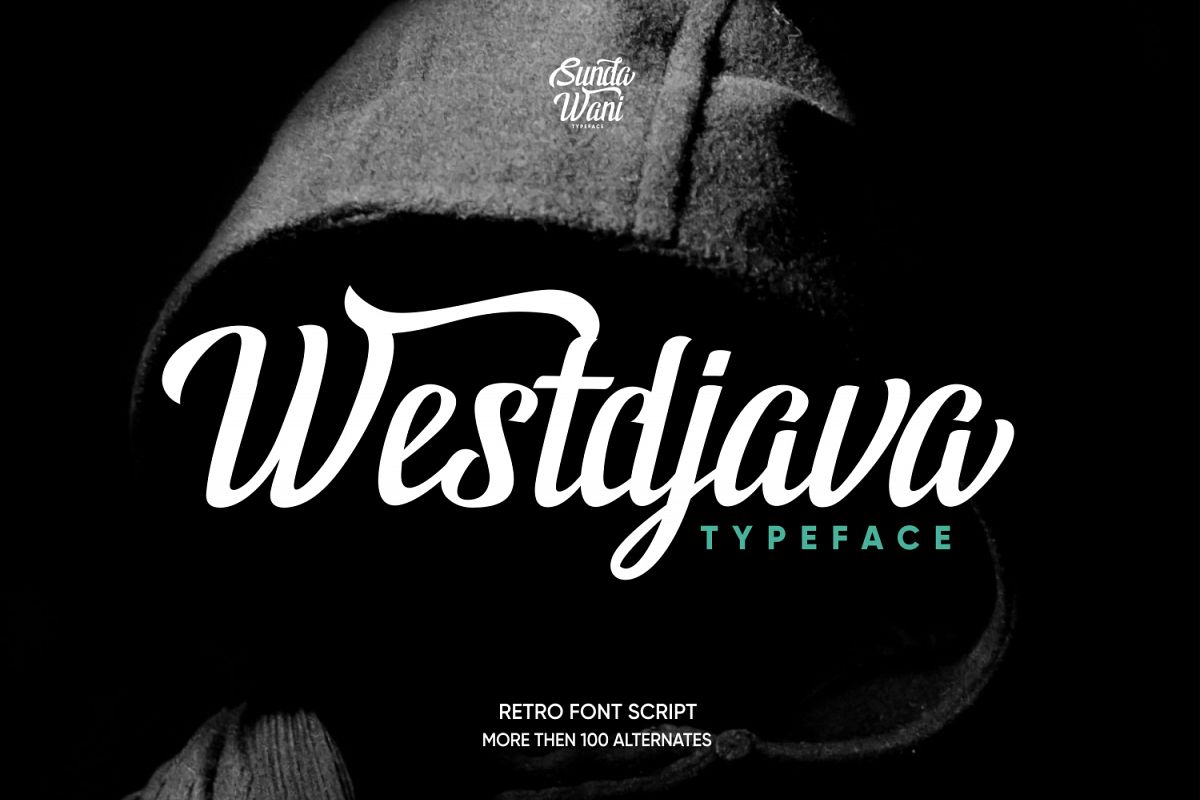
Westdjava Typeface
Westdjava is a retro, bold,
classic and vintage script font.
Westdjava Script features more then 100 alternate characters. Great for
various purposes.such as logos, t-shirt, letterhead, posters, Wedding
invitation, badges etc.
Westdjava comes with uppercase, lowercase, numerals, punctuation, multilingual characters.